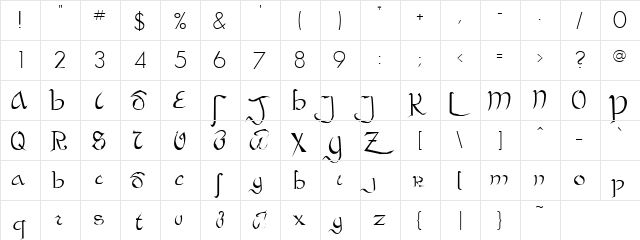
Ibna Bathutha Regular
Design Context for Ibna Bathutha Typeface
Ibna Bathutha takes a measured approach to typography — its balanced proportions and neutral character make it a reliable workhorse for both digital and print work.